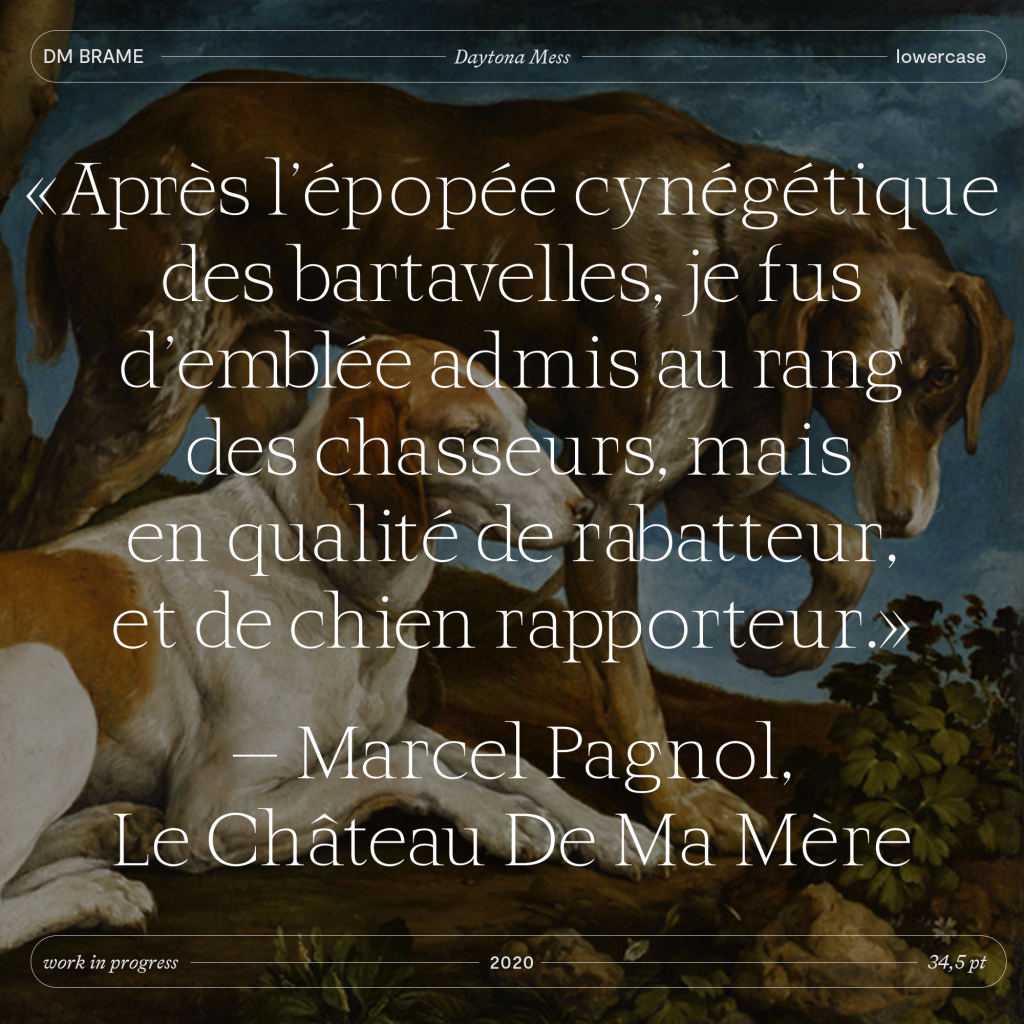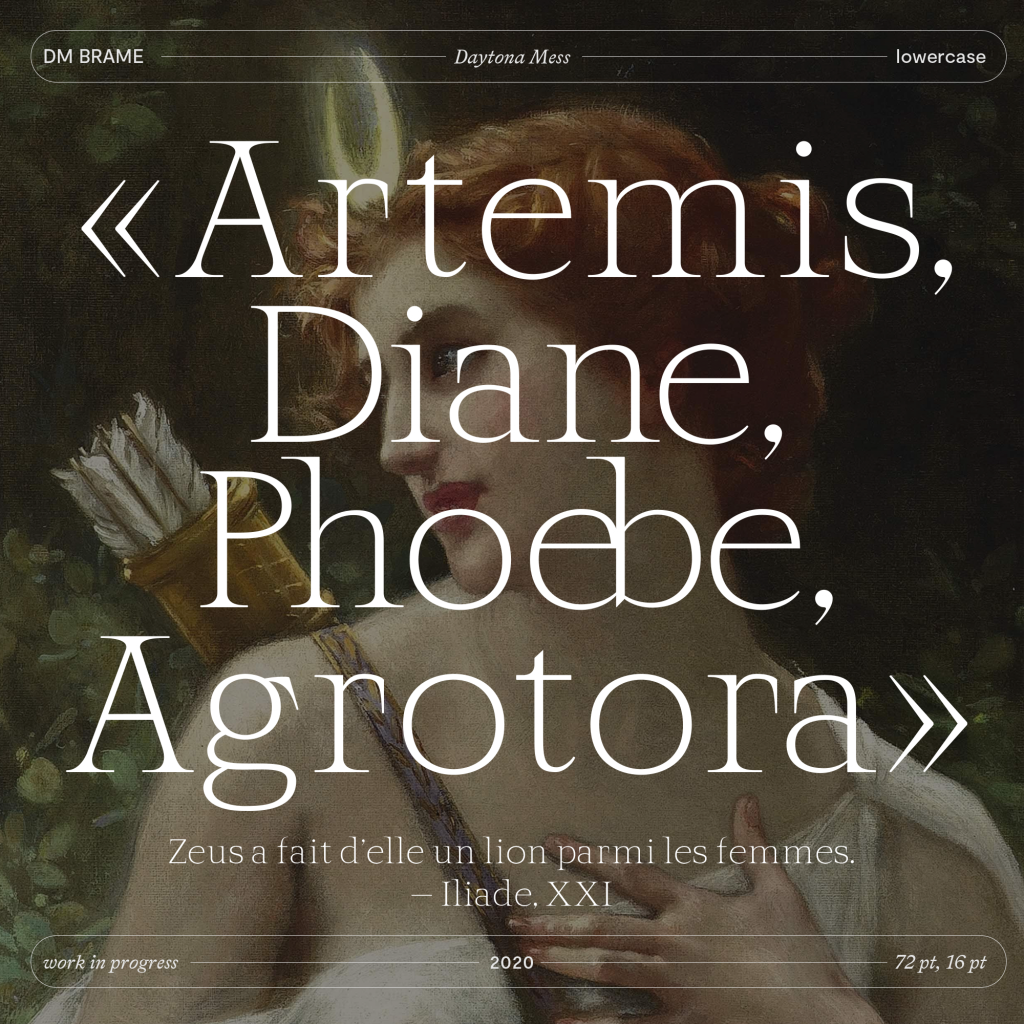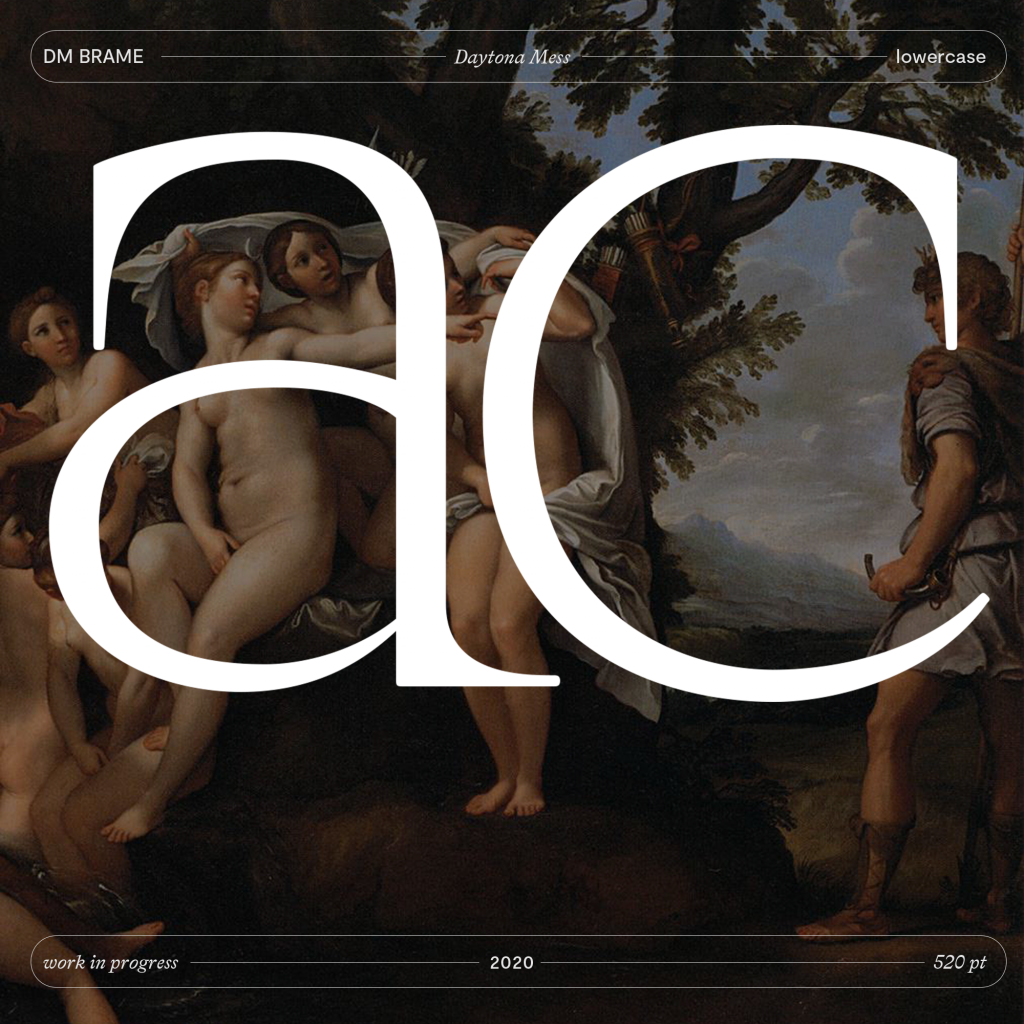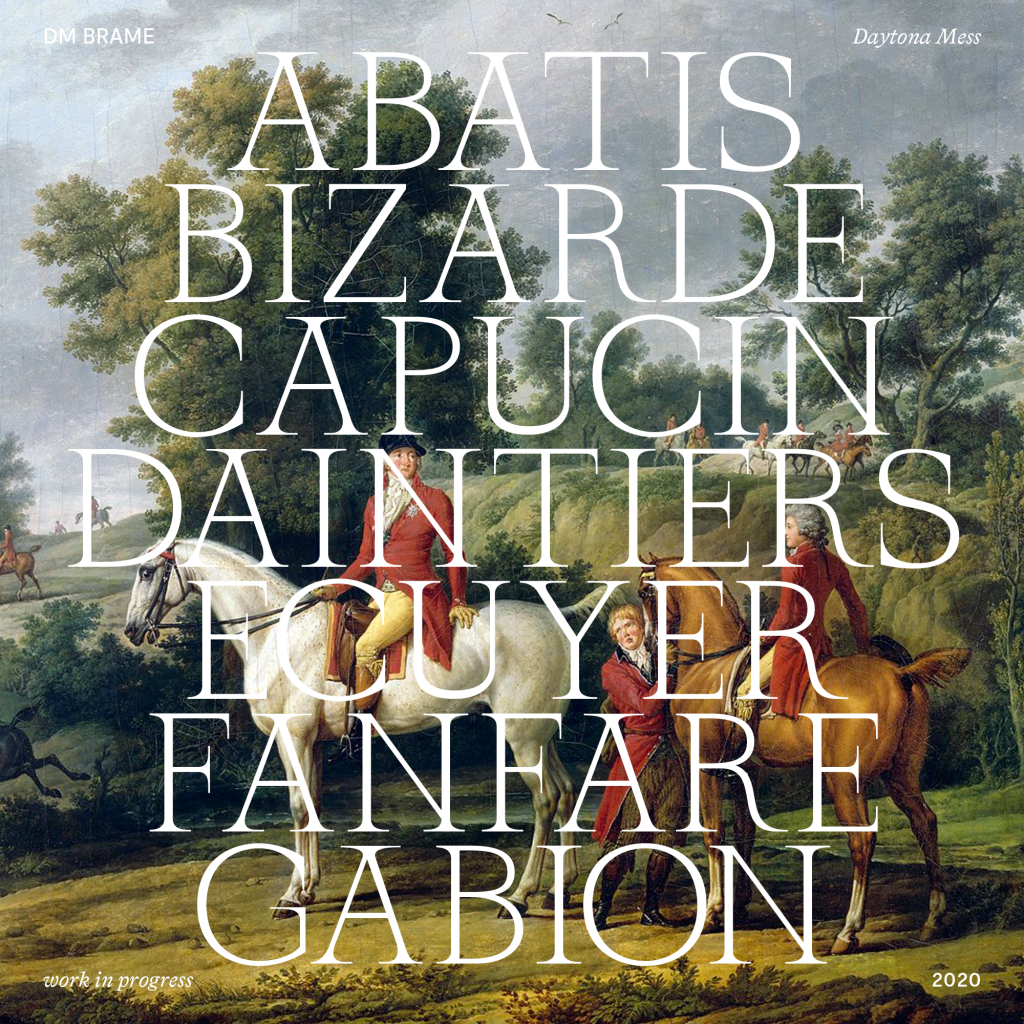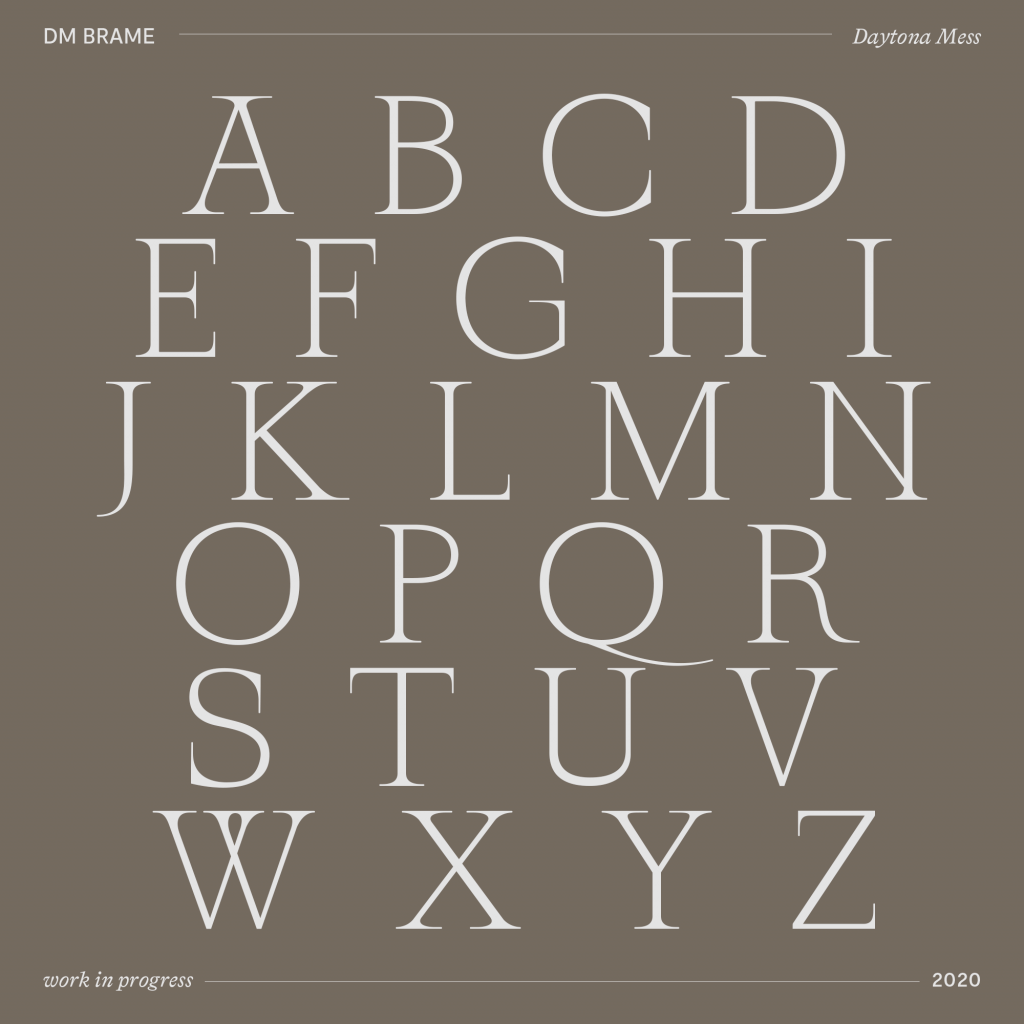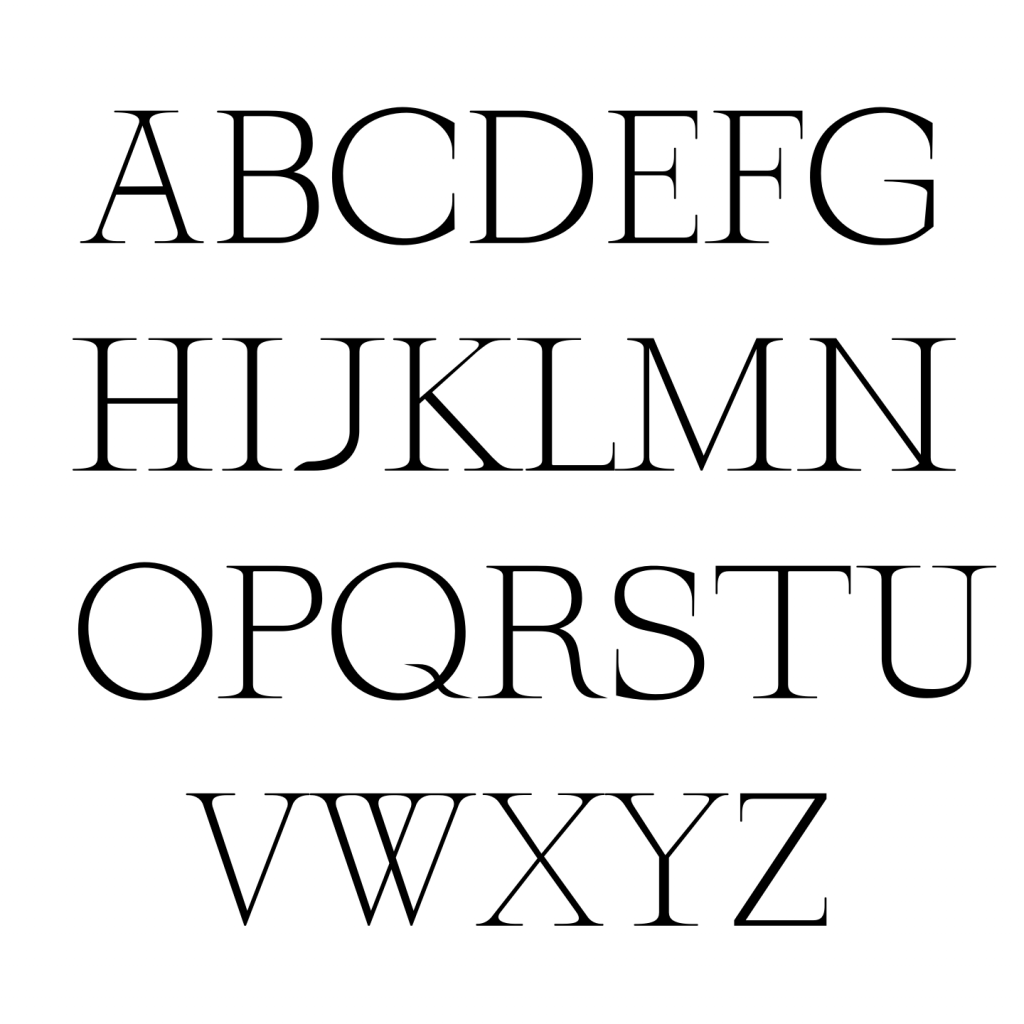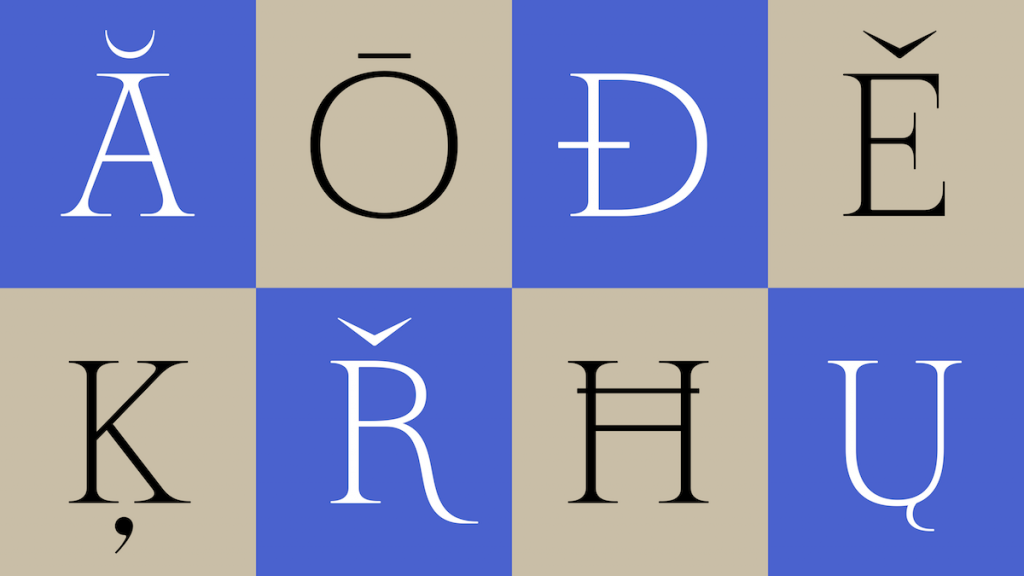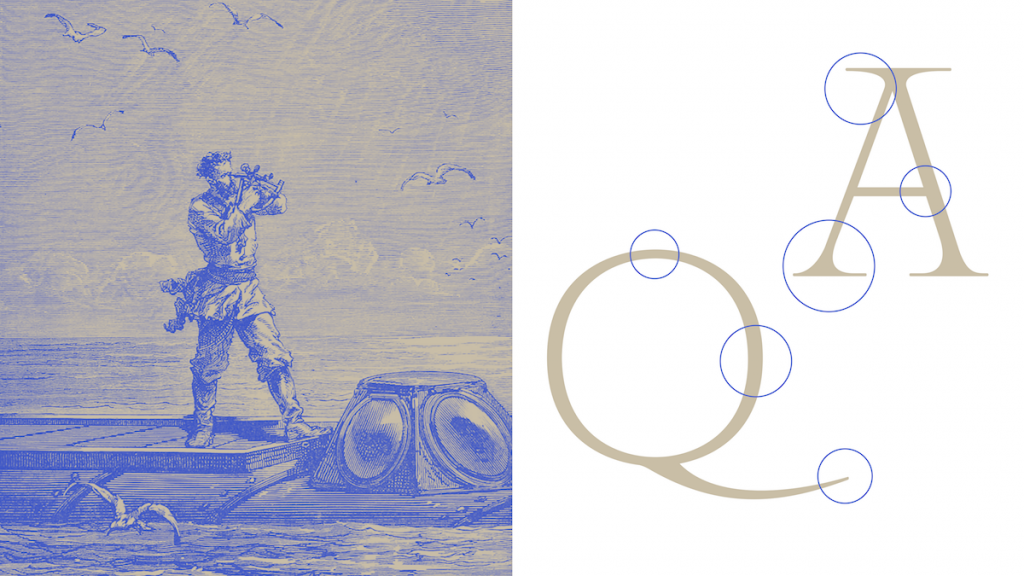
Name: Nautila
Designer: Daytona Mess
Foundry: Type Department
Release Date: September 2021
Back Story: French type designer Daytona Mess (Anne-Dauphine to the tax man) started working on the font that was to become Nautila in spring 2019, with two projects in mind: one was her own take on a record cover for Cardi B’s track “Bodak Yellow;” the other was to use in a zine she designed called Pussy. Having “loved the experience of working on the font for Pussy,” she decided to continue exploring its potential in a fully fledged contemporary serif typeface. “One of my very favorite things to do in graphic and type design is to take inspirations that could appear contradictory at first glance, and mix them up,” says Daytona.
As such, with the Cardi B design, she deliberately railed against the sort of typefaces you might expect to see on such a record and wanted to “challenge the roughness of the song with something sleek and elegant,” she says. “I’ve always had a strong fondness for extremely elegant serifs.”
When creating the type designs for Nautila, she looked to fonts like Cormorant Garamond by Christian Thalmann and studied the letterforms in order to “decipher what made it classical, contemporary, and fundamentally elegant.” Other type inspirations included Quattrocento by Impallari Type, and Athemys by Morgane Vantorre. “But really, my main and first inspiration was music — mostly female lead pop and hip hop, through artists like Cardi B, Lana Del Rey, and too many others to cite,” says Daytona. “Music is my first love and is always hiding somewhere in the background of my typography inspiration in one way or another.”
Why’s it called Nautila?
The font was initially called DM Bodak: DM for Daytona Mess, and Bodak for Bodak Yellow. This was later changed it to DM Brame, “brâme” being the French word describing the calling noise of rutting stags. “I come from a very strong French culture of hunting, and my grandparents used to own a gigantic vision park, where deer and other forest animals can roam freely, and I wanted to pay homage to this beautiful wealth of inspiration,” says Daytona.
Still, Brame wasn’t meant to be. It was Nautila, the third idea, that finally stuck, all thanks to the designer stumbling on “a gorgeous vintage cover” of Twenty Thousand Leagues Under the Sea by Jules Verne, published by Édition J. Hetzel. In the book, the fictional submarine owned by Captain Nemo is called Nautilus, and thus Nautila was born.
The font specimen draws on the blue, gold and black colors of the book cover that instantly enchanted Daytona; and she also recognized some qualities shared by the font and the story. “There is a certain roundness in the font that evokes to me the shape of a chambered nautilus, with the animal’s tendrils reminiscent of the sharp serifs of the font,” she says. “Also, I really like how the name ‘Nautila Regular’ allows me to display the alternates of both the A and the R.”
What are its distinguishing characteristics?
Evolved with assistance from Romain Oudin of French foundry Lift Type, Nautila is a distinctive, elegant low-contrast serif typeface that went through 14 iterations before arriving at the forms we see today. The main challenge was the usual numerical characters, which are set as Oldstyle figures—a distinctive and unusual touch in that they share the same x-height as lowercase characters, and the 6 and ‘8’ have ascenders; the 3, 4, 5, 7, and 9 bearing descenders.
What’s striking about the font is its sense of balance. “Its serifs are sharp, yet subtly and consistently rounded,” Daytona says, adding that the biggest design struggle was in the kerning and spacing: “I tend to have ideas that are really not classical for someone who designs such classical typefaces!”
But it all seems to have worked out in the end: Nautila supports most European Latin languages, Pinyin (the standard system of romanized spelling for transliterating Chinese) and uppercase Greek. It also features alternates for the capital A and R. Standout glyphs include the capital R, with its unusual tail; and its symmetrical capital C. Nautila only has one weight for now, but Daytona says she plans to expand it in future.
What should I use it for?
The classical modernity of Nautila and its sense of balance make it versatile enough to be used across titles, sub titles, and body copy. It’s an obvious choice for a display titling typeface, as well as within magazine spreads or on book covers. Daytona’s “dream,” however, is to see it used in designs for music—applications like festival graphics, artist wordmarks, or record covers for “any music genre, but something like metal or hip hop would be super fun,” she says. Really, you could use it for pretty much anything: serious texts; wild acid graphics-style pieces, mixed with outlandish display fonts; digital applications. “I have seen some marvelous usages of early versions of the font in some UI/UX projects, and I would be very interested to see how the font lives in product packaging,” she adds.
What other fonts should I pair it with?
Again, the fact that Nautila straddles classical type design and modern-leaning neutrality means that it can go with most things—aside, perhaps similarity classic/contemporary serifs. For all its potential formality, Nautila’s quirks mean it’s able to stand out against wilder fonts; and might work particularly well with geometric typefaces. In early specimens, Daytona paired Nautila with DM Sans and Moderat. “As Nautila is fairly low contrast, a font with a much more impactful contrast, or on the contrary a sans (so that Nautila’s serifs shine), could work particularly well,” she adds. “I, for one, would love to see it challenged against a mono font.”